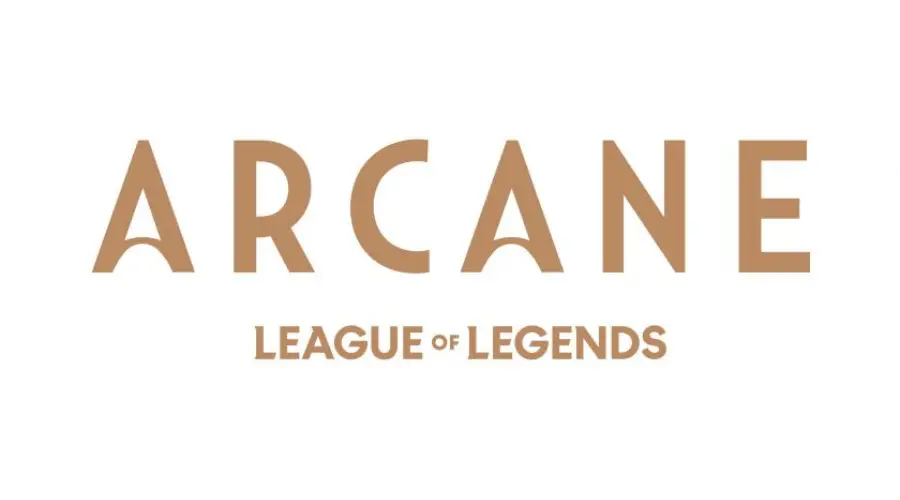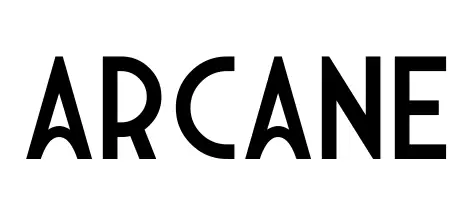
Short answer: the official Arcane site shows the series wordmark but does not publish a typeface credit. Arcane Nine is a fan-made font inspired by the series, not an official production font. It is the closest purpose-built option in this comparison; Saveur Sans Round, League, and Futura provide broader visual alternatives rather than confirmed matches.
What is official—and what is a match?
Arcane’s official site is the artwork reference for this comparison. Its narrow letters, uneven cut details, and custom spacing make the title behave like a finished wordmark. No official page reviewed for this update names a retail font, so the candidates below should not be described as the original font used by Netflix, Riot Games, or Fortiche.
| Typeface | Role in this comparison | Source and rights note |
|---|---|---|
How to reproduce the mood without copying the logo
Start with tall capitals, tighten the spacing carefully, and add small custom cuts only after the word is readable. Compare the shapes at the final display size: Arcane Nine supplies the strongest fan-art cue, while Saveur and Futura are cleaner choices for a broader fantasy or technology theme. Do not use the official Arcane wordmark or League of Legends marks in a way that suggests sponsorship.